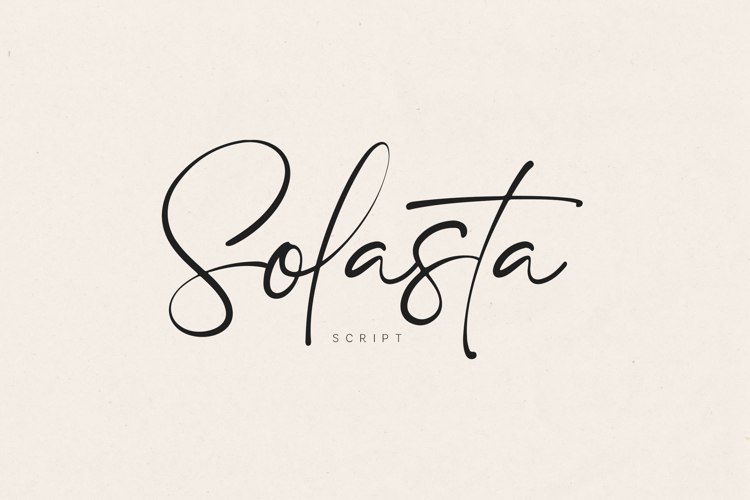
Solasta Signature Script Elegant Handwritten
Solasta is a refined signature script font that captures the beauty of natural handwriting with a modern, elegant twist. Designed with smooth curves and expressive strokes, it delivers a perfect balance between sophistication and authenticity.
Every letter flows effortlessly, creating a graceful rhythm that feels luxurious. Solasta is crafted for designers who want to elevate their work with a timeless handwritten style that stands out in branding and editorial design.
Whether used for logos, fashion campaigns, or wedding stationery, Solasta adds a distinctive signature touch that feels confident, stylish, and effortlessly premium.
🔤 Features• Uppercase & lowercase
• Natural signature flow
• Elegant & modern strokes
• Stylish handwritten aesthetic